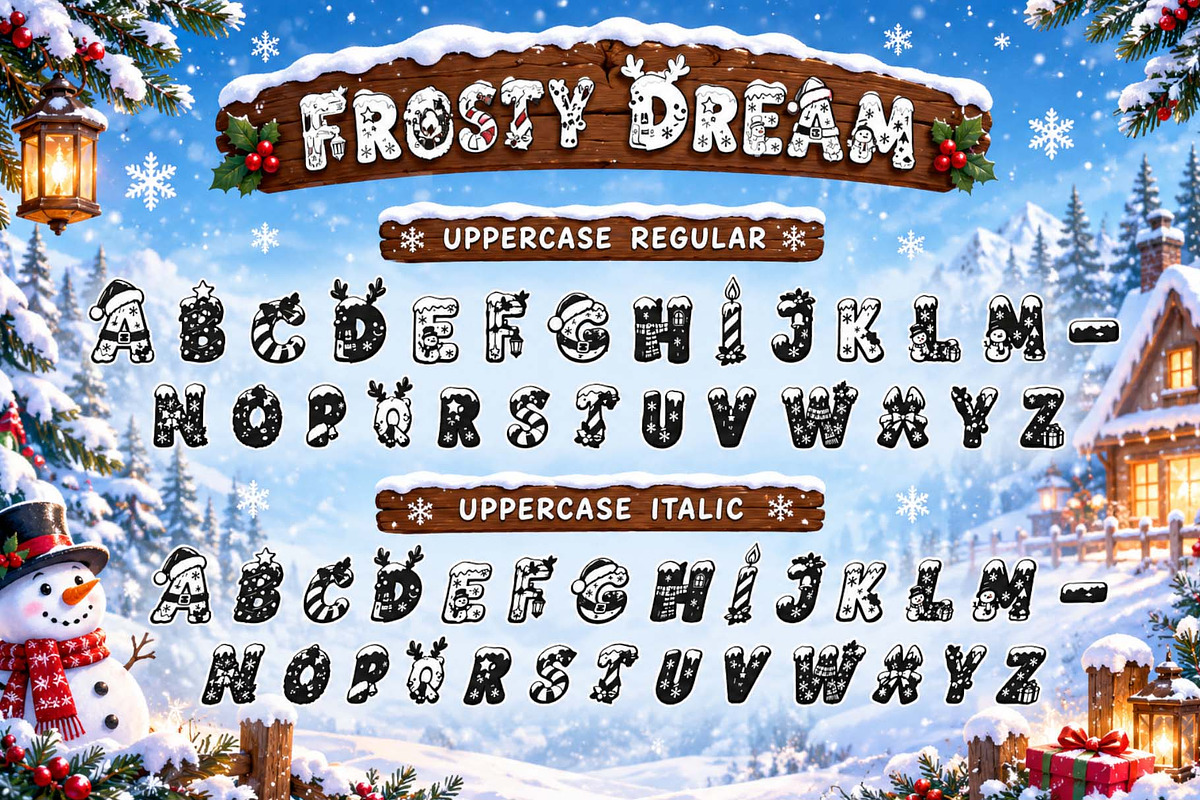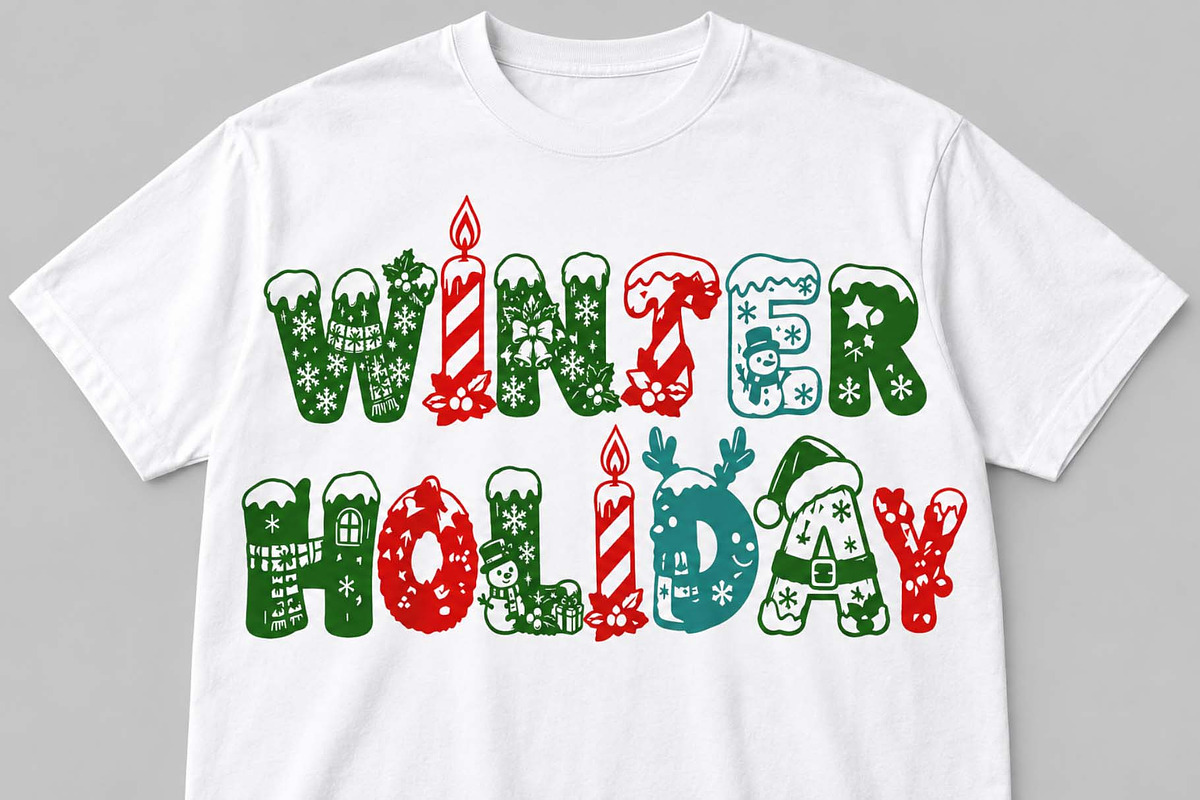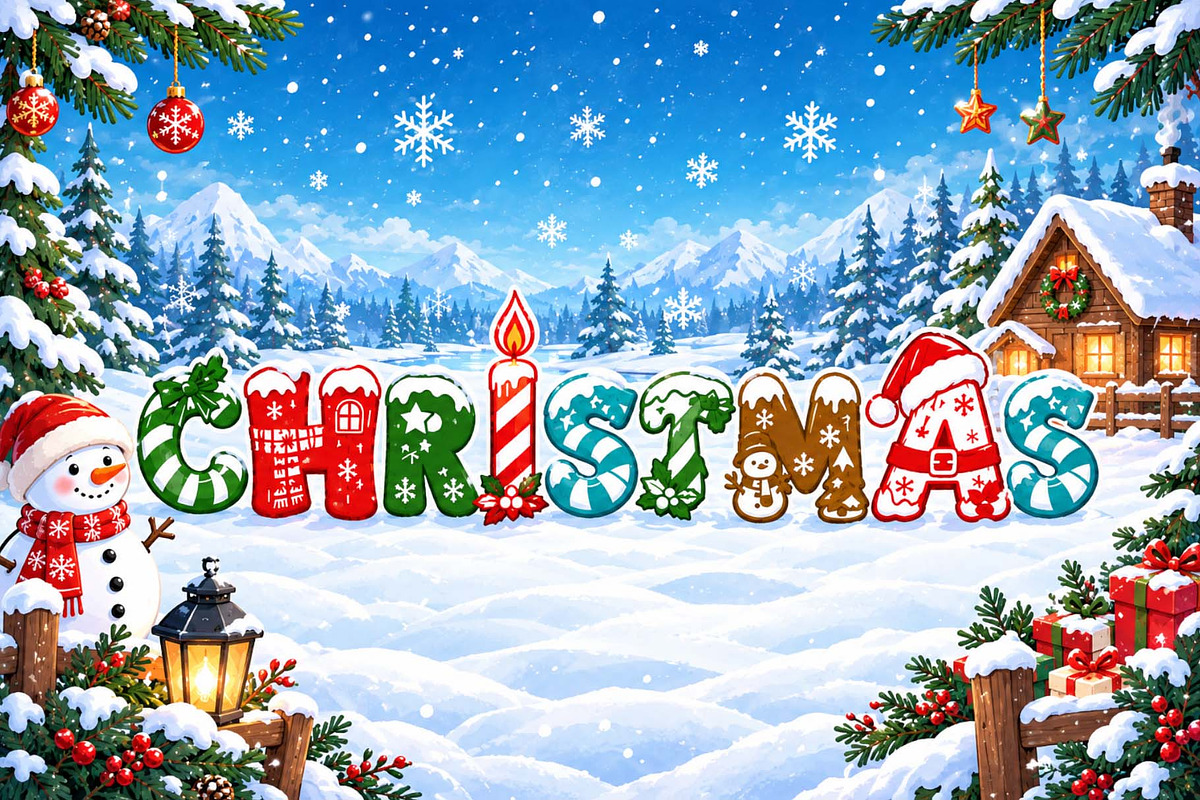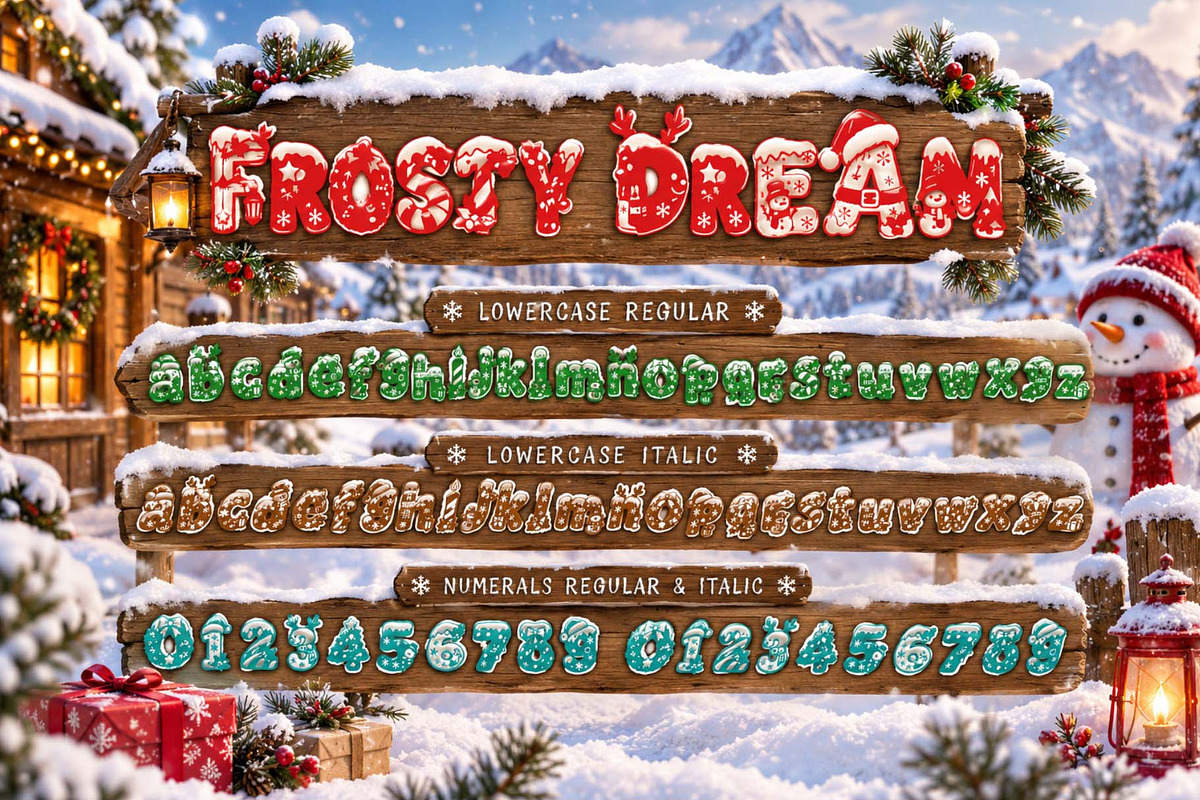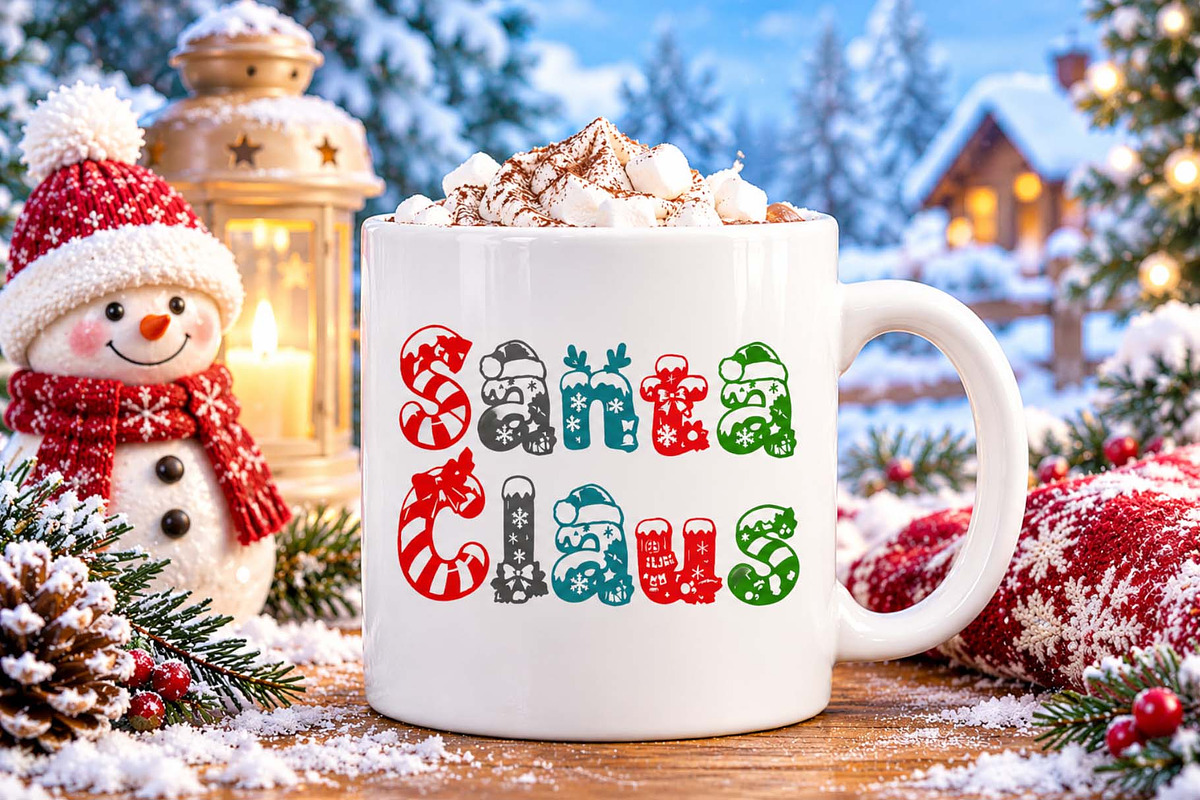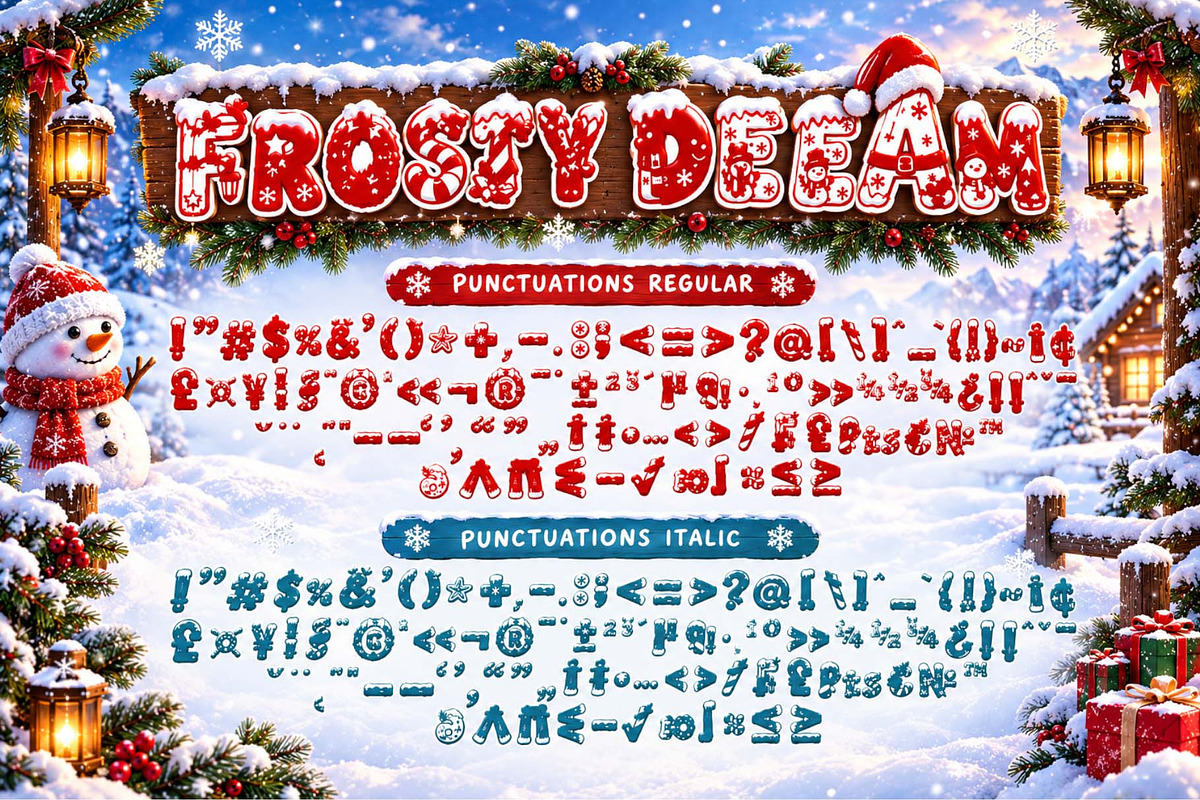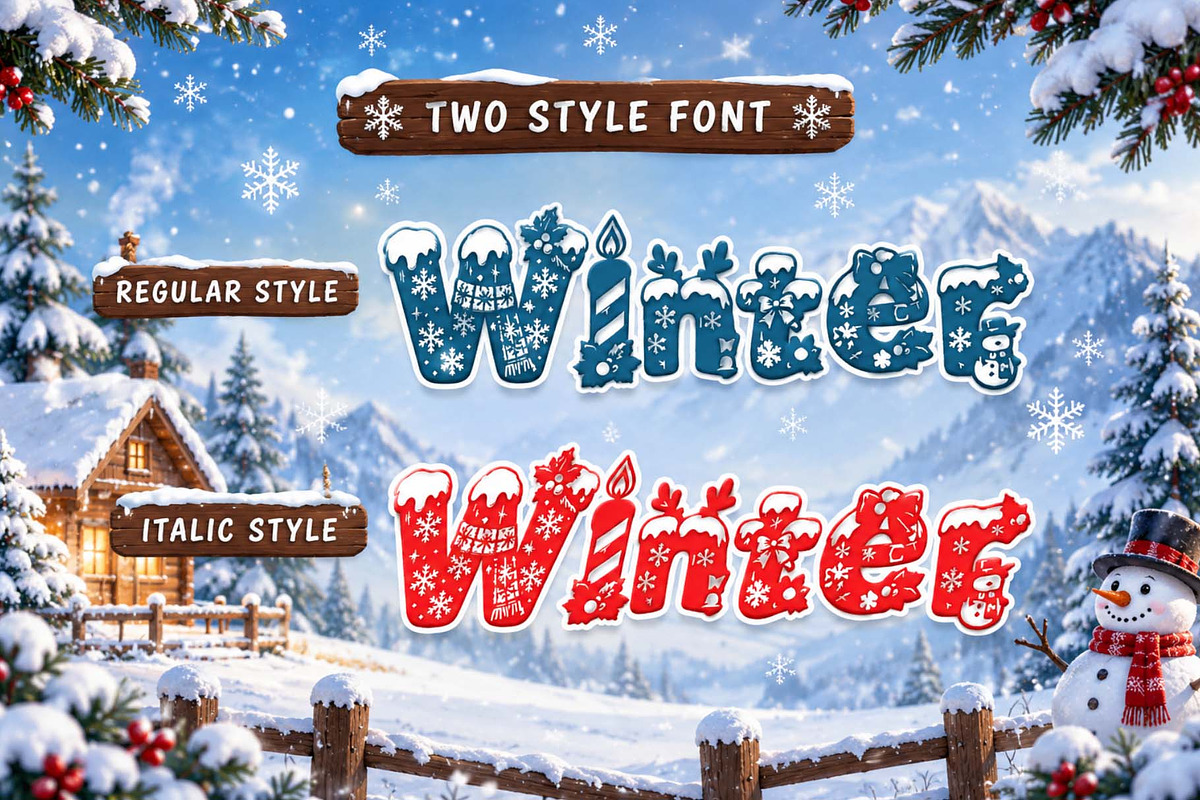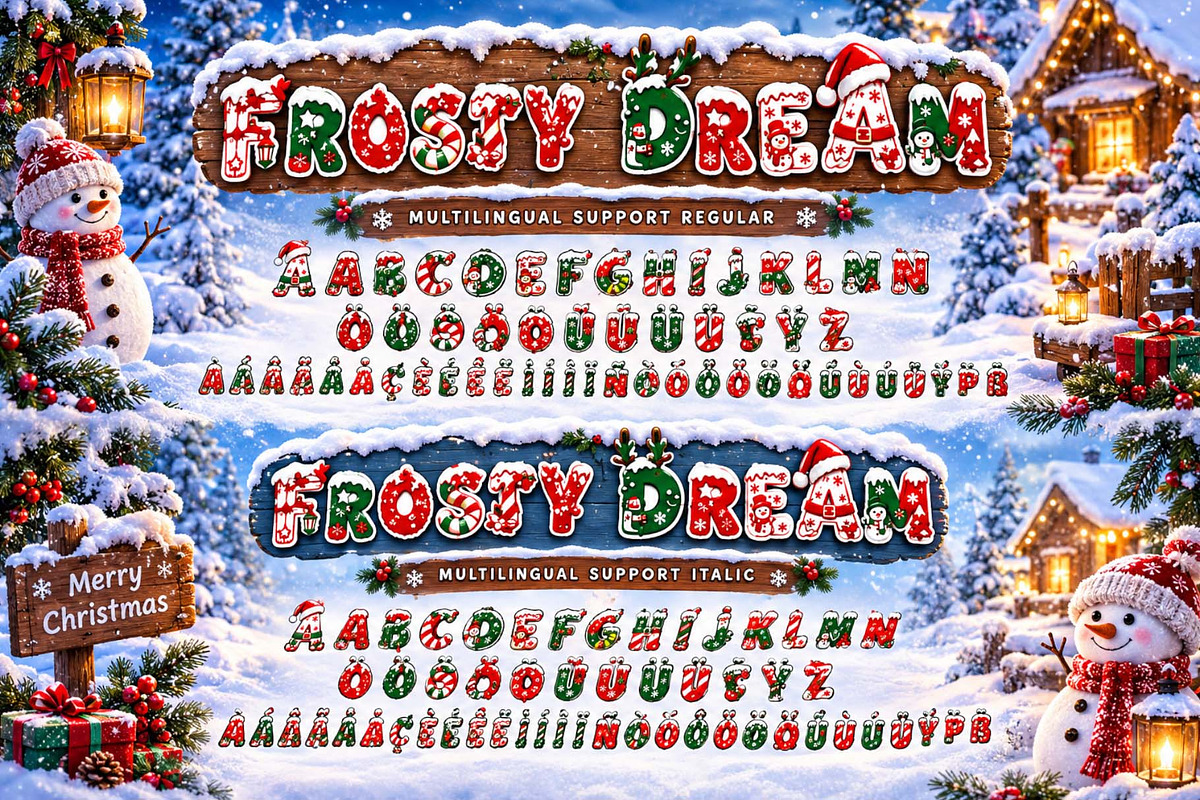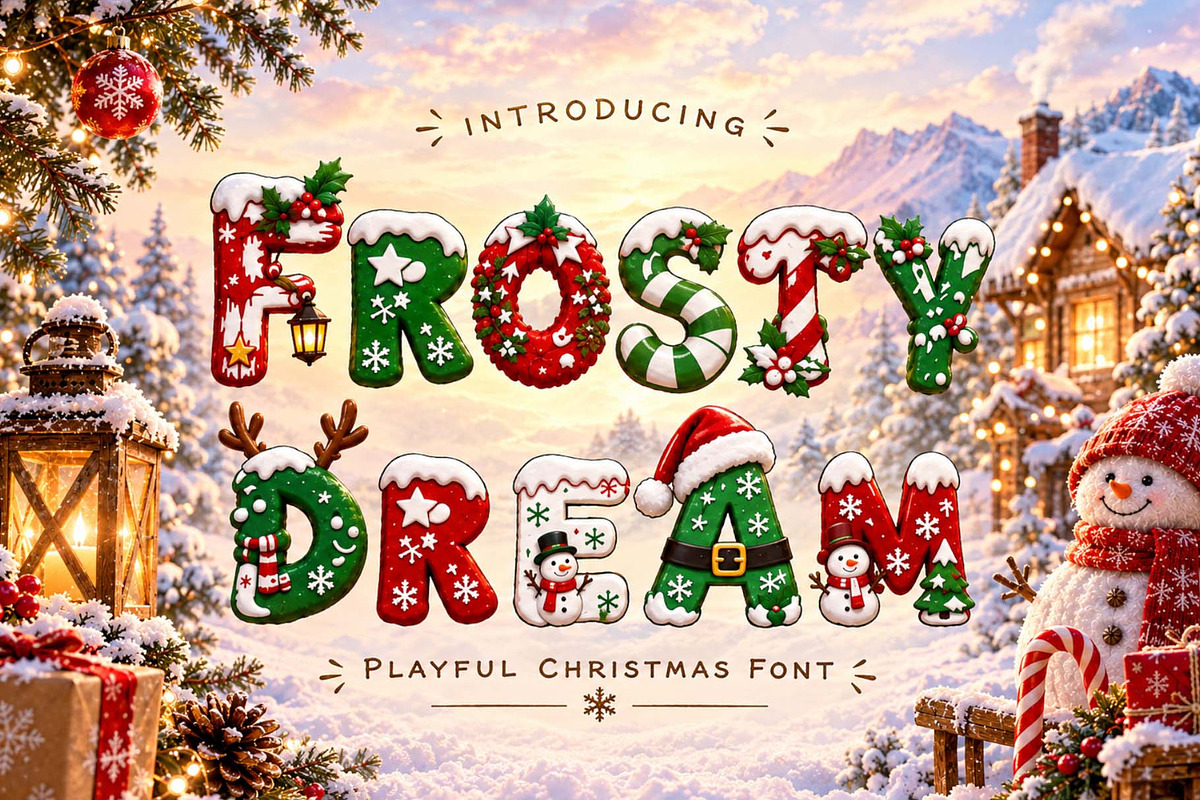
Frosty Dream
Bring the magic of Christmas to your creative projects with Frosty Dream, a fun and playful Christmas display font brimming with festive charm. This font features chunky, cheerful letterforms adorned with delightful elements such as snow, candy canes, holly leaves, berries, snowflakes, Santa hats, and other adorable winter details, instantly creating a joyful holiday atmosphere.
Frosty Dream is perfect for a variety of applications, including Christmas cards, holiday invitations, greeting cards, T-shirt designs, mugs, gift packaging, stickers, posters, party decorations, sublimation projects, and seasonal crafts.
Designed to infuse every Christmas project with warmth, cuteness, and a touch of magic, Frosty Dream is ideal for: • Christmas & Holiday Designs • Greeting Cards & Invitations • T-Shirts & Apparel • Mugs & Gift Products • Stickers & Labels • Posters & Signs • Cricut & Cutting Projects • Sublimation & Print Designs • Holiday Branding & Packaging.